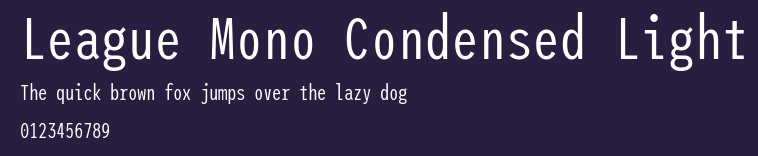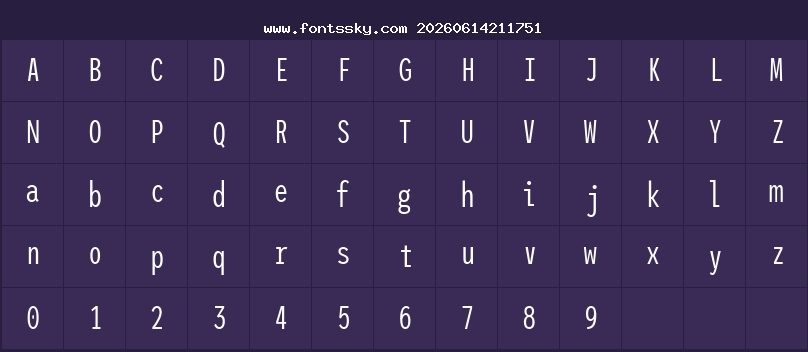
League Mono Condensed Light Preview
• Designer: Tyler Finck
• Manufacturer: The League of Moveable Type / Tyler Finck
About League Mono Condensed Light.ttf
League Mono Condensed Light.ttf is a modern, elegant sans-serif font designed for ultimate readability and visual harmony. Perfect for branding, headlines, web design, and print materials.